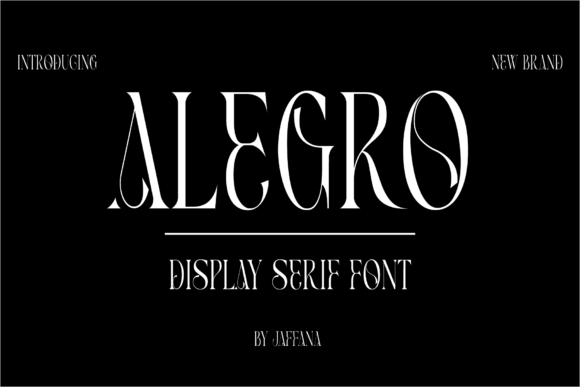
In a world saturated with conventional fonts, behold Alegro, the serif font that rises above the rest with its aura of refinement and elegance. Each letterform is a testament to meticulous craftsmanship, adorned with delicate curves and intricate details that exude a timeless appeal. Alegro's tall and slender serifs lend an air of verticality and sophistication, while the generous spacing ensures effortless legibility.
With Alegro, you're not just downloading a font; you're embarking on a journey into a world of high-end editorial design and luxury branding. Imagine your creative CV adorned with Alegro's graceful strokes, captivating the reader with its inherent elegance. Witness your designs transformed, as if by magic, into masterpieces that radiate sophistication and class. Alegro's polished style elevates your projects to new heights, adding a touch of prestige and distinction that sets them apart from the ordinary.
Unleash your creativity with Alegro and experience the joy of effortless expression. Its versatile nature adapts seamlessly to a myriad of projects, from elegant wedding invitations to captivating marketing materials. Let Alegro's timeless beauty enhance your designs and leave a lasting impression on your audience. Embrace the allure of Alegro and unlock a world of possibilities, where your creative vision knows no bounds. The font that speaks volumes, Alegro is your gateway to design excellence.